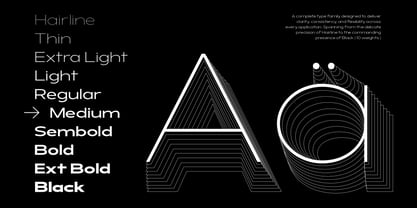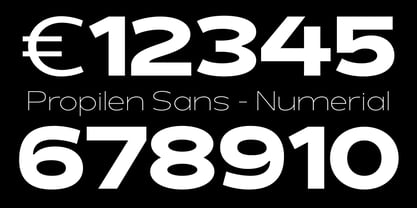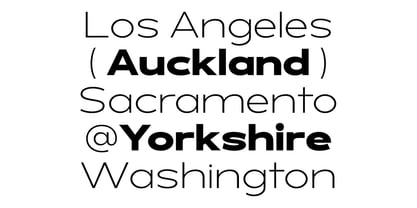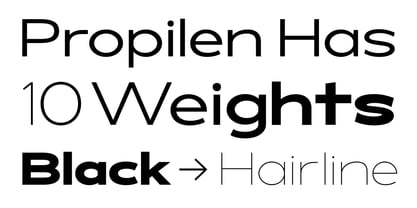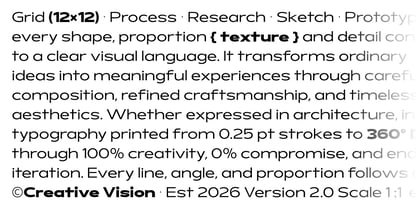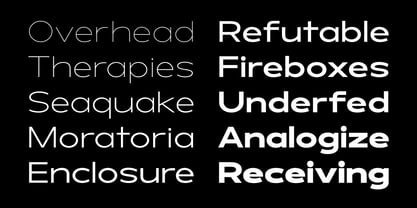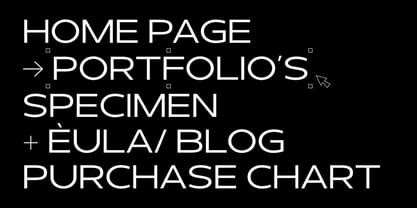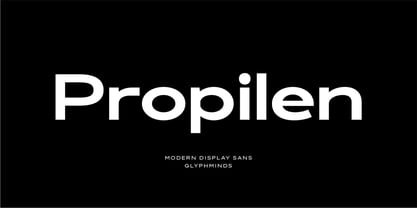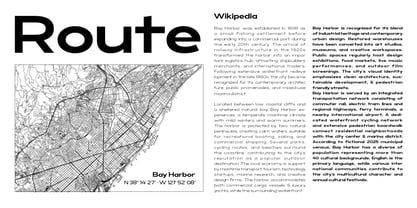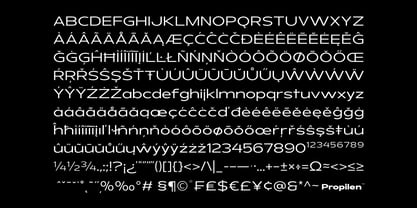
Propilen
von Glyphminds Studios
Die Schriftfamilie Propilen wurde von Baliya Ibnu Bi Malkan entworfen und von Glyphminds Studios veröffentlicht. Propilen enthält 10 Stile und Familienpaketoptionen. Mehr über diese Familie
Meet Propilen—The Ultimate Modern Display Sans for Bold, High-Impact Design.
Engineered for versatility and striking visual presence, Propilen is a geometric display sans-serif family that effortlessly commands attention. Ranging across 10 distinct weights from delicate Hairline to commanding Black, this family offers an extraordinary spectrum of typographic expression, ensuring seamless adaptability across digital and print mediums.
Propilen features clean, calculated geometric curves, generous proportions, and exceptional legibility. Whether you are building an authoritative brand identity, designing sleek editorial layouts, or crafting high-contrast website headlines, Propilen adapts instantly to your creative vision.
Designer: Baliya Ibnu Bi Malkan
Foundry: Glyphminds Studios